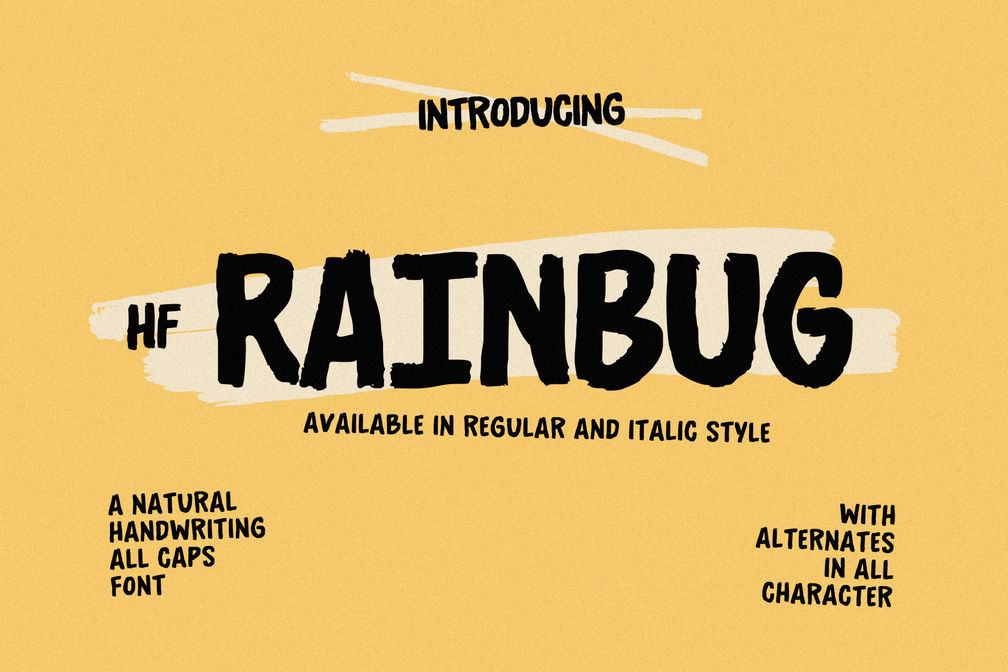
HF Rainbug Brush
HF Rainbug is a natural brush font with all camps characters complete with alternates for each character. Not only that, this font also multilingual support. This font is suitable for various design themes that you will design, and can be adjusted easily to get a natural feel because alternates are available for each character.
• Uppercase, Lowercase
• Punctuation, Symbol
• Number
• Alternates
• Opentype
• Multingual support